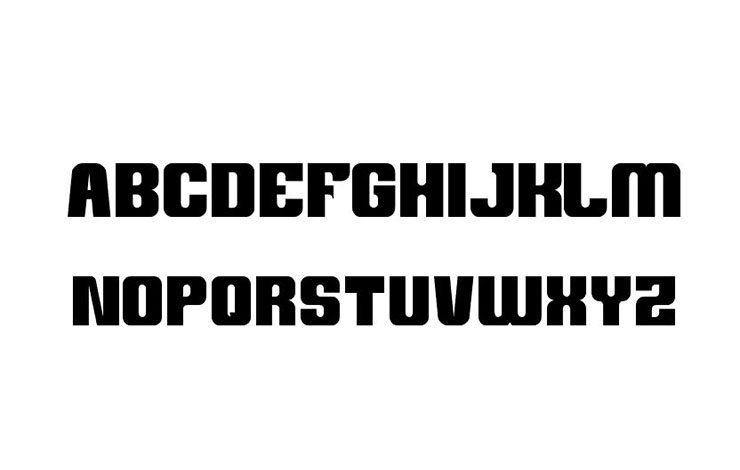
Chicago Cubs Font! The Chicago Cubs are a professional baseball team based in Chicago, Illinois. They compete in Major League Baseball (MLB) as a member of the National League (NL) Central Division.
The Cubs share the city with another MLB team, the Chicago White Sox. The team has a long and storied history, winning three World Series championships in 1907, 1908, and 2016.
The Cubs play their home games at Wrigley Field, one of the oldest and most famous ballparks in the United States.
Here we are sharing a similar font for the text “UBS”, you can check out Philosophy by weknow, or Neographik from Monotype. These fonts are available for download on this site.
Style:Logo, Sans Serif, Display
The font features a classic and timeless look, with bold letters that are easy to read from a distance.
It is often used in the team’s logos, jerseys, and other promotional materials, helping to establish a strong and recognizable brand identity. The font has become synonymous with the Cubs and is beloved by fans of the team around the world.